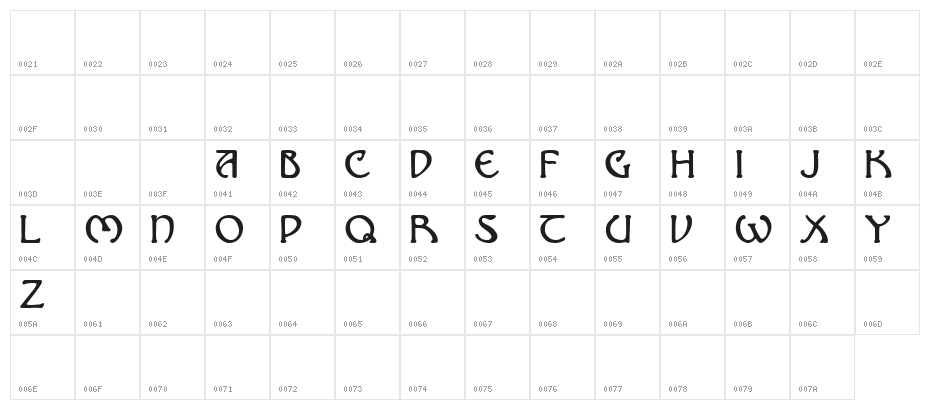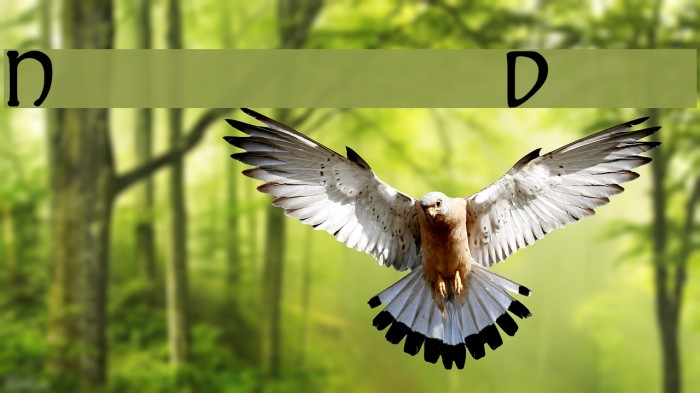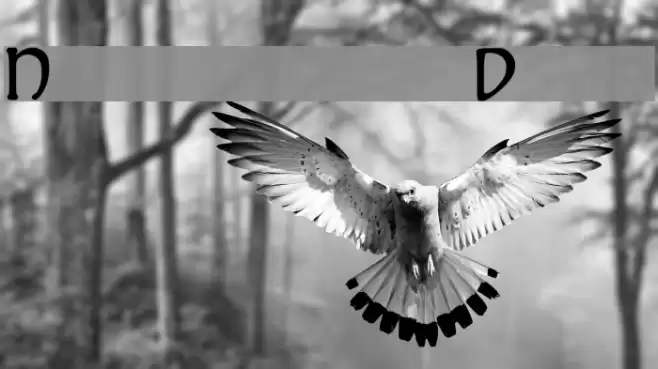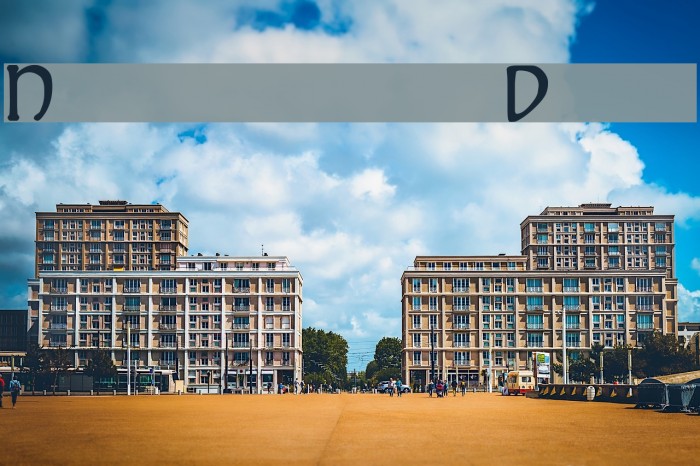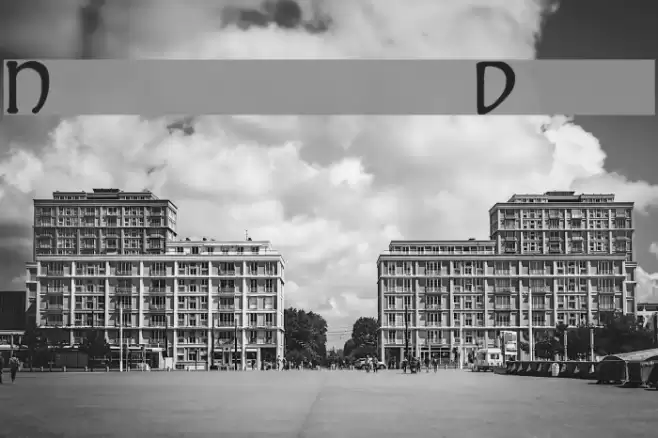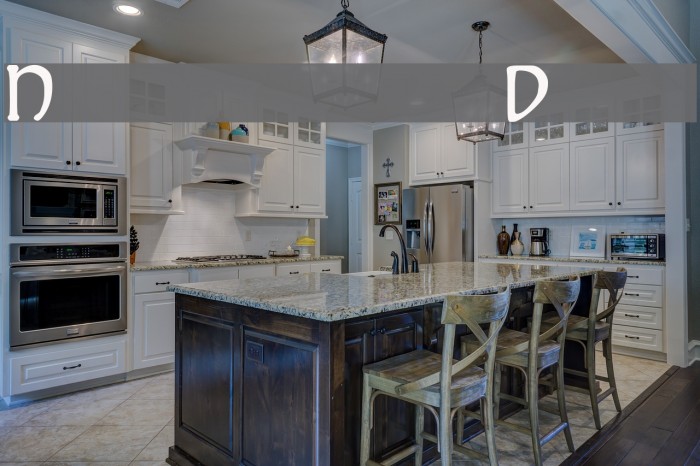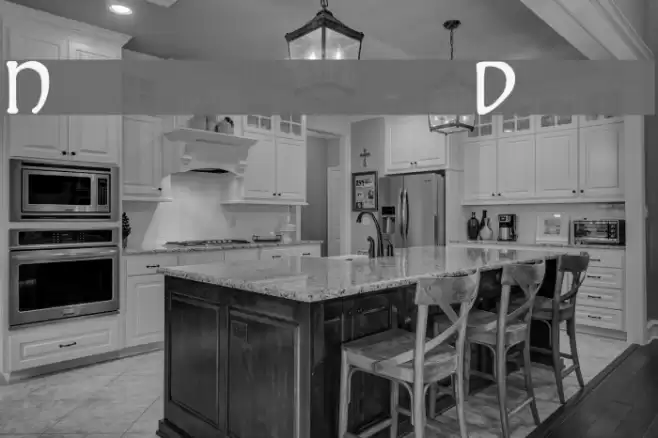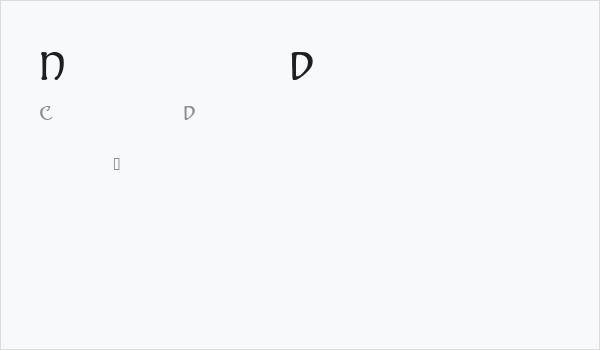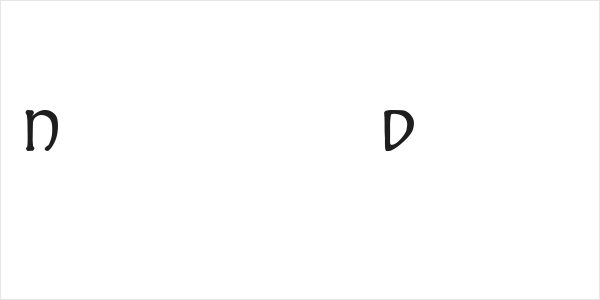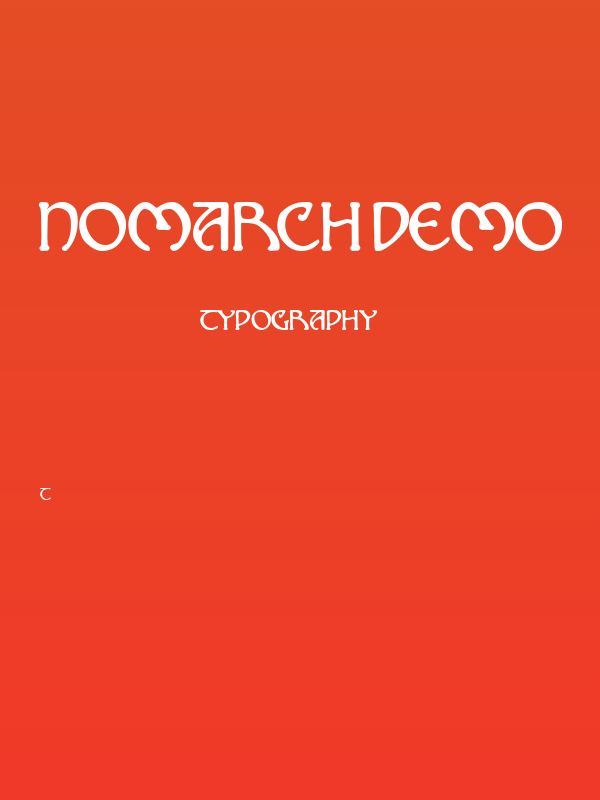
Nomarch Demo Font
Nomarch Demo Description
This font features a unique blend of modern and vintage elements, characterized by its bold and decorative style. The uppercase letters exhibit a distinct flair with curved and angular strokes, creating a sense of movement and elegance. The lowercase letters maintain a consistent style, complementing the uppercase with their own subtle curves and decorative elements. The numbers and special characters are designed to match the overall aesthetic, ensuring a cohesive look across all text. This font's artistic design makes it suitable for creative projects that require a touch of sophistication and flair.
| Proposed Projects | Ideal for branding, poster design, book covers, and artistic projects that require a distinctive and elegant typeface. |